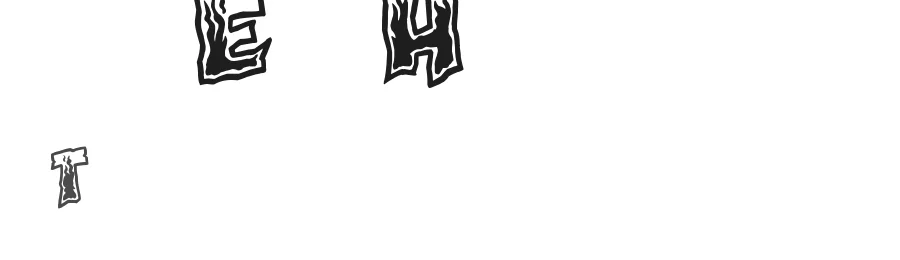
About Mona Shark Font
Mona Shark Specifications
| Font Family | Mona Shark |
| Full Name | Mona Shark |
| PostScript Name | MonaShark |
| Designer | Jonathan S. Harris |
Mona Shark supports 209 languages.
Mona Shark Font is a decorative font that shines as a display or heading face. Pair it with a clean sans-serif or serif font for body text β the contrast creates a clear hierarchy while the two styles stay balanced and easy to read.